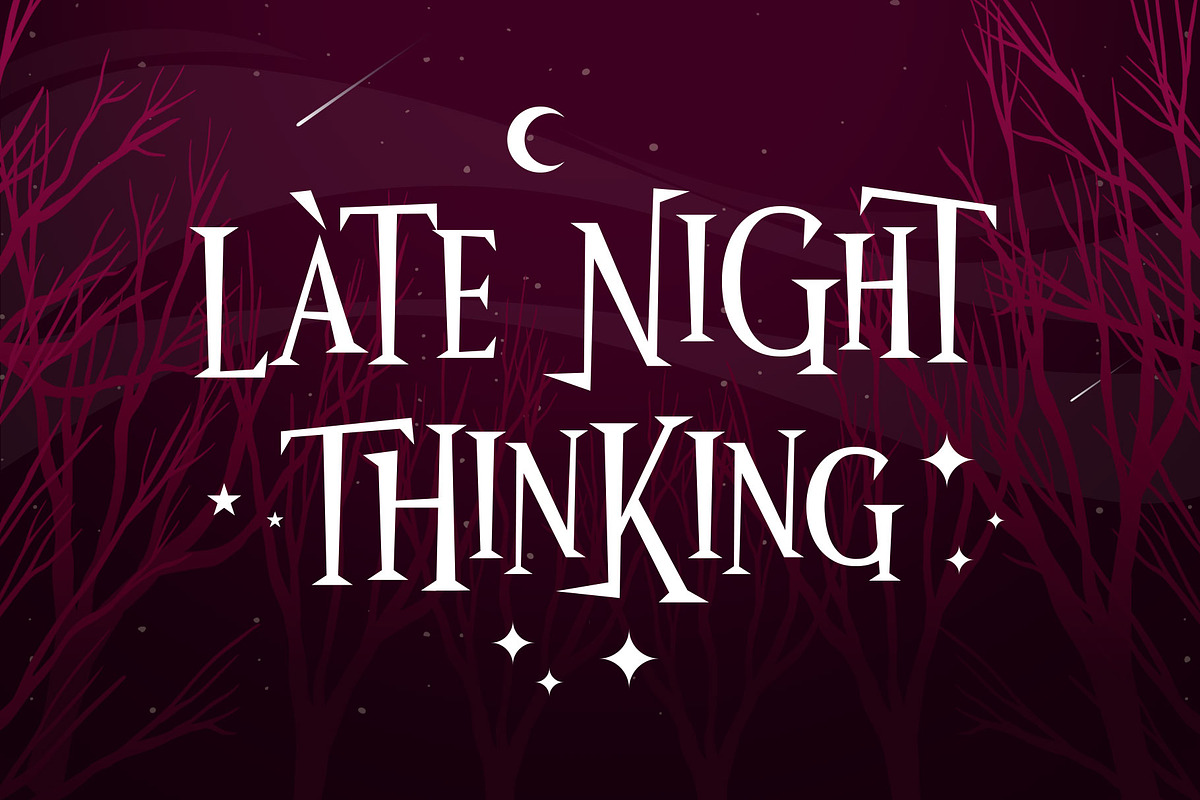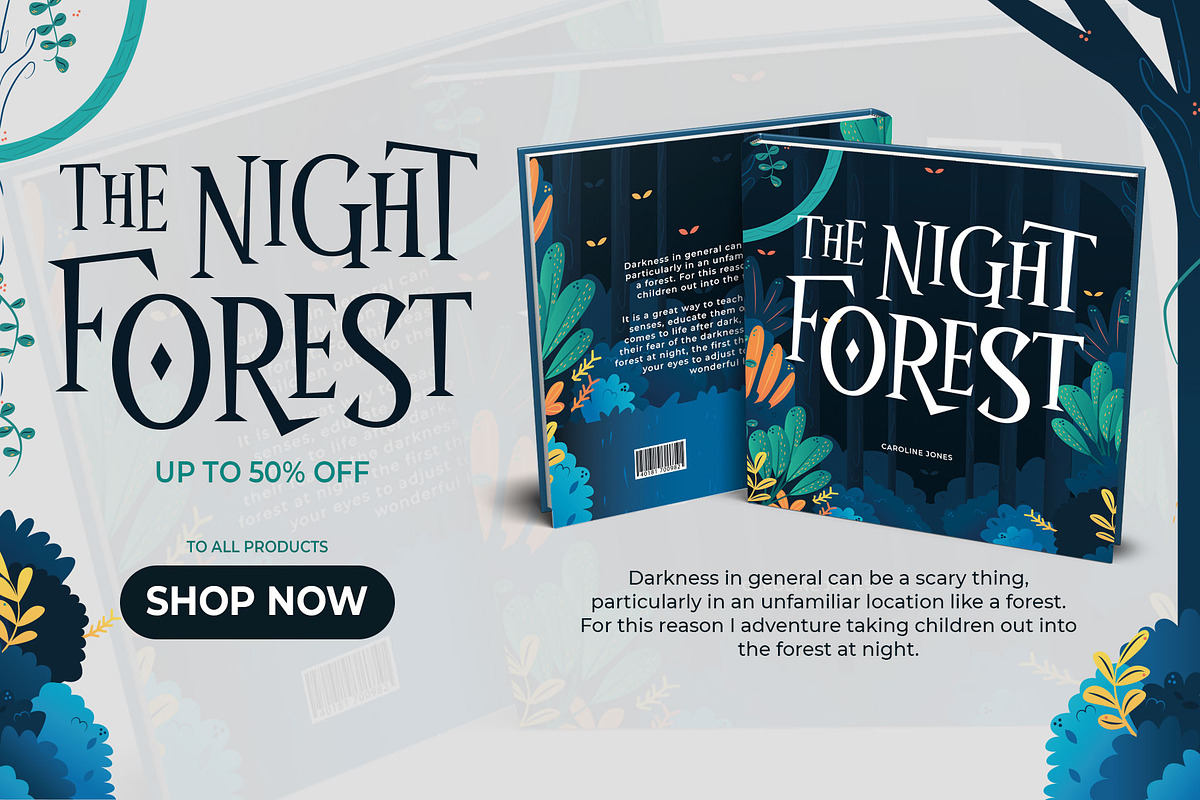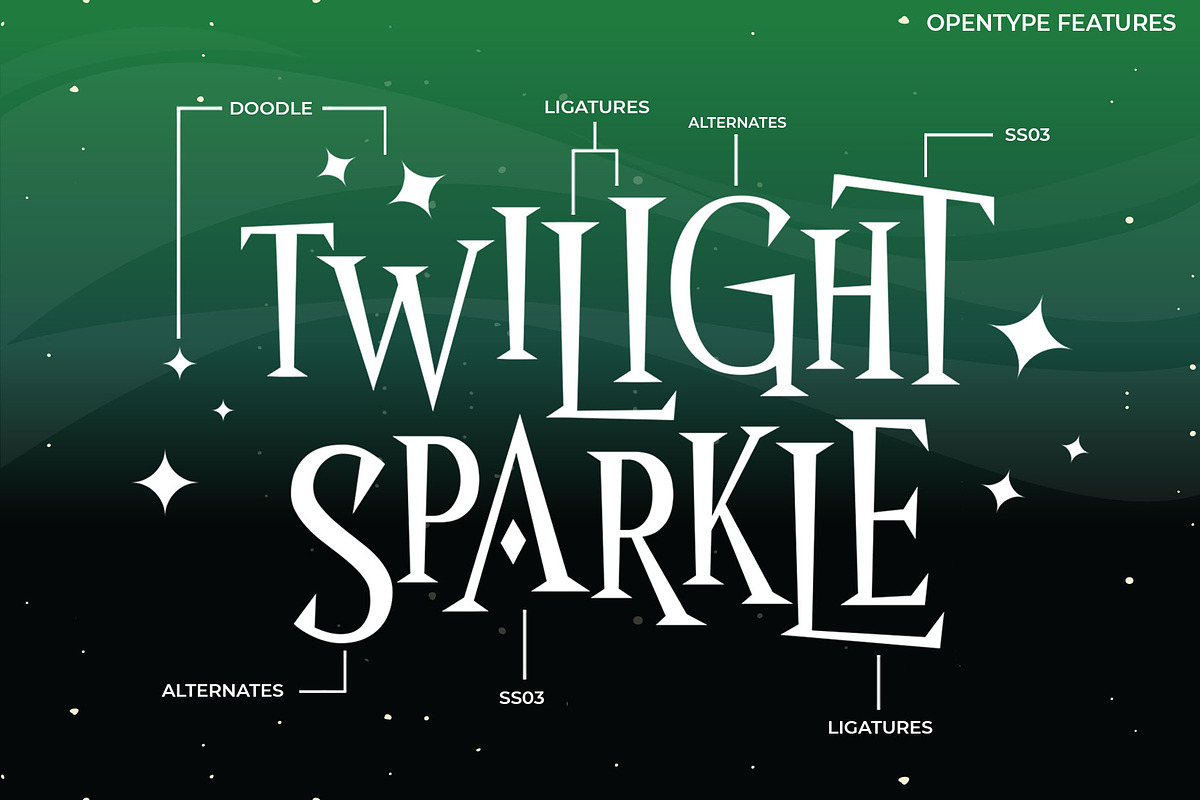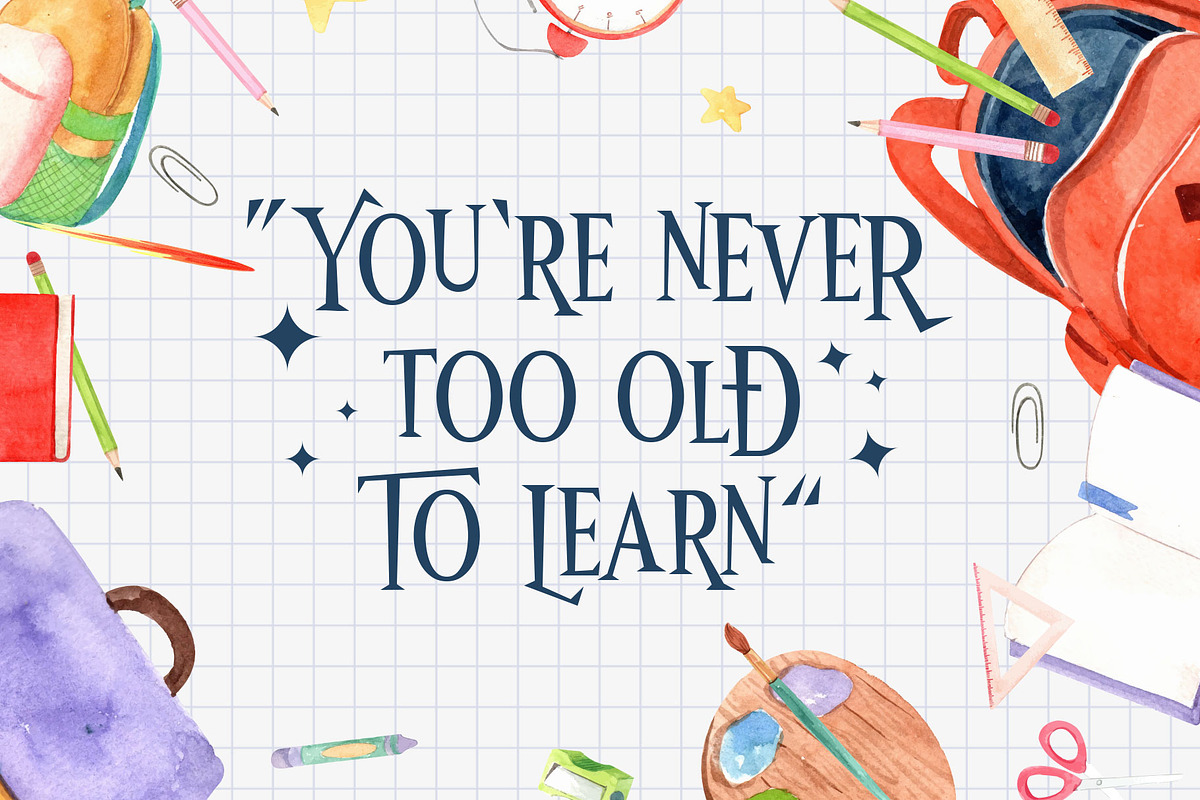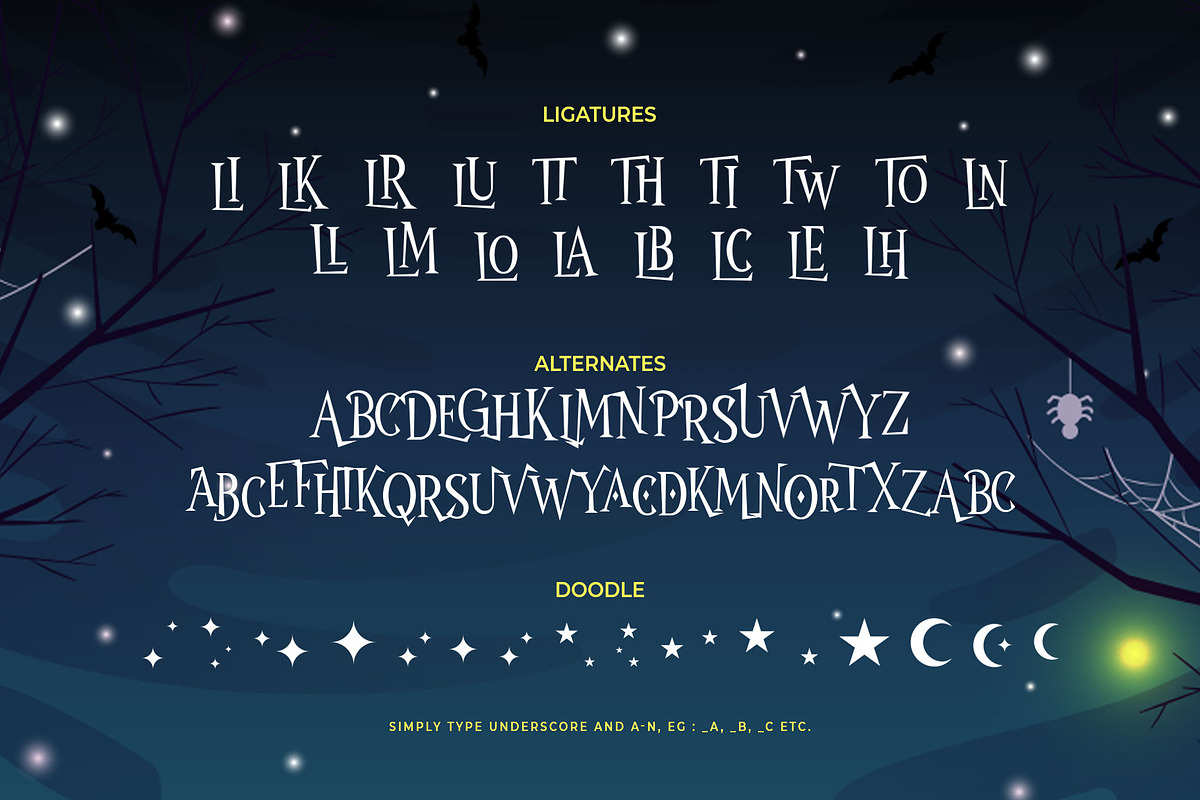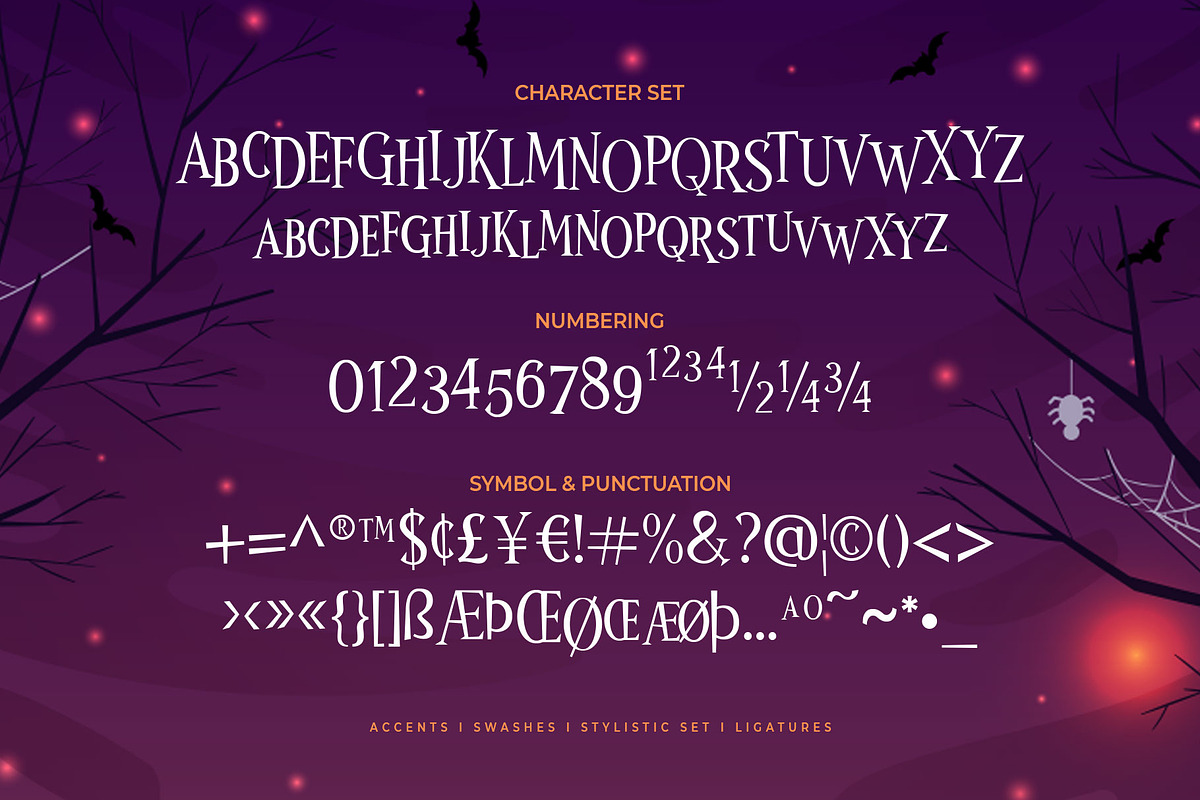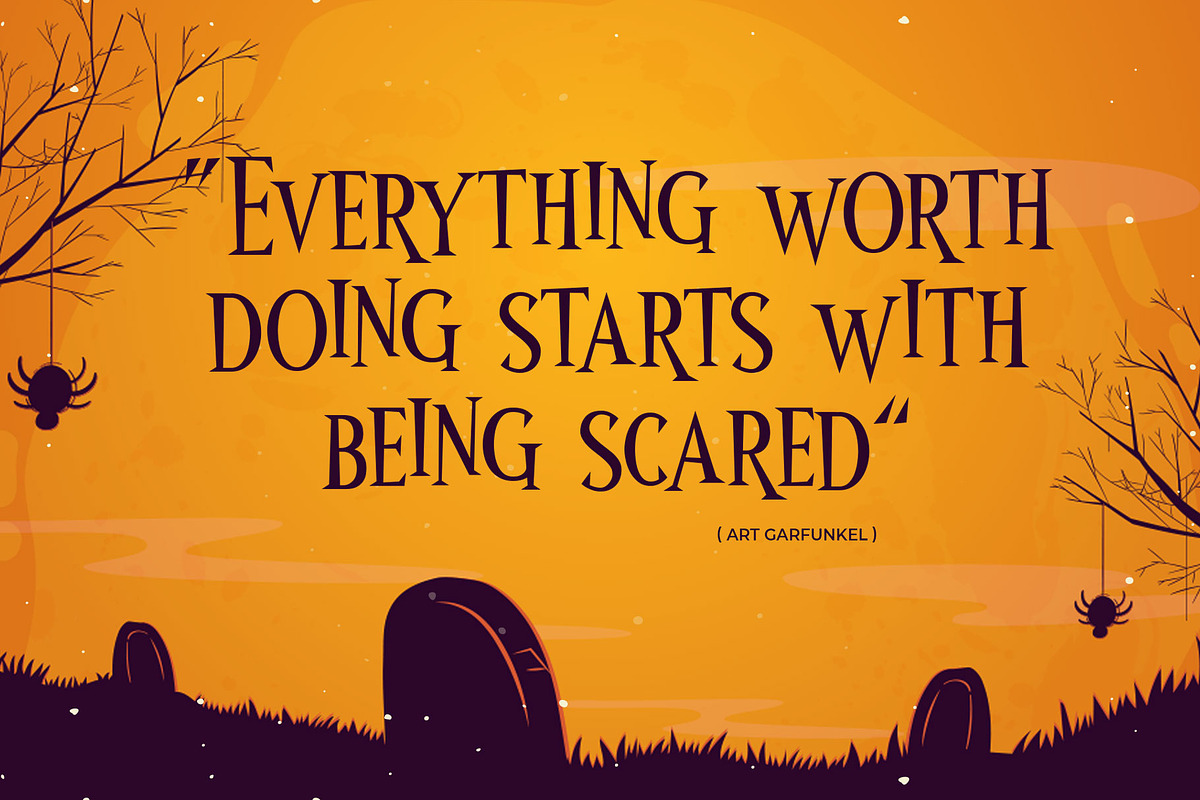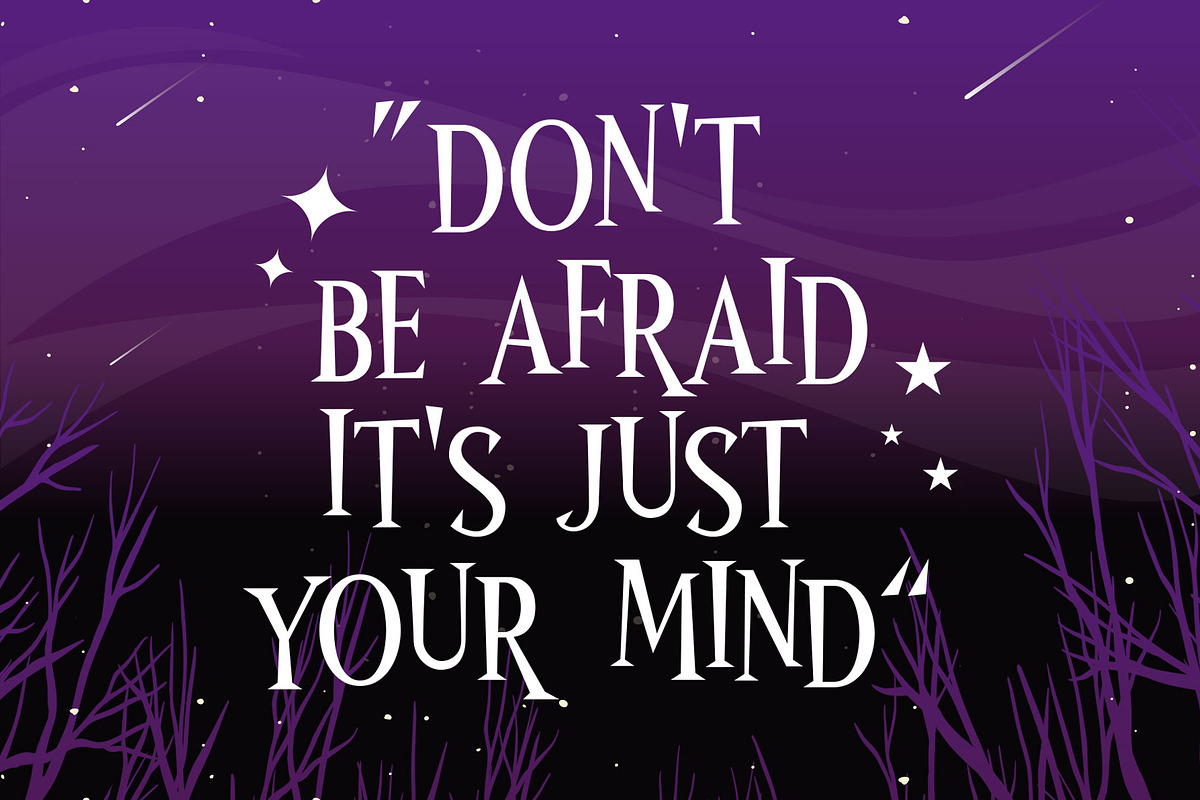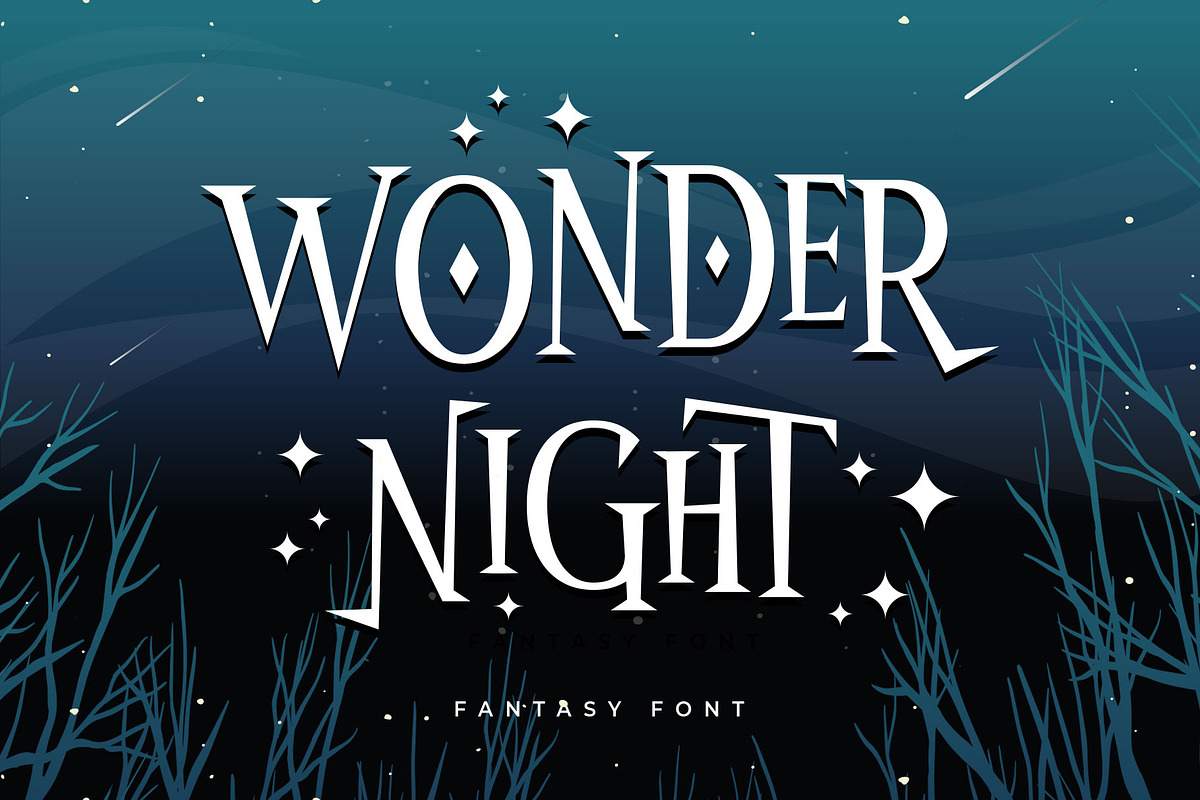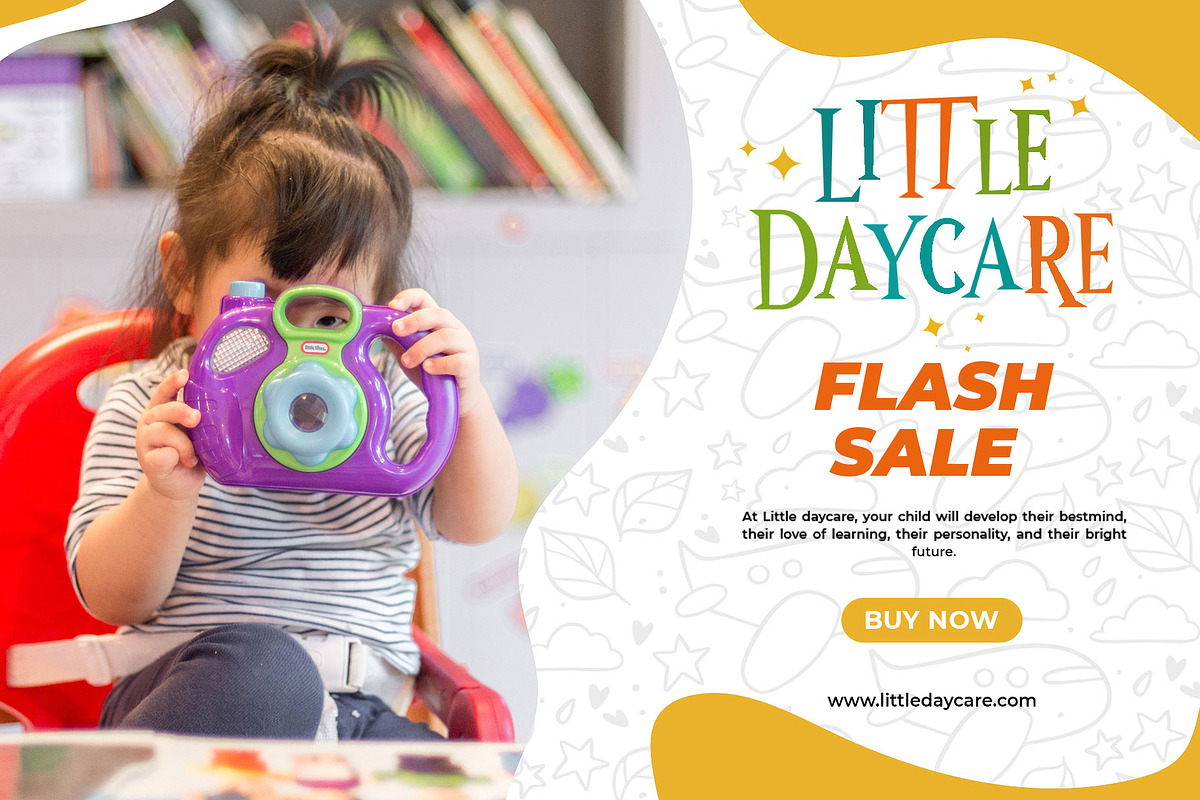
Wonder Night
Express your imagination with Wonder Night! a fancy fantasy font inspired by magical storybook and horror-fantasy movies. This font created with a very bouncy of letterforms, and carefully kerned into a readable typeface.
Wonder Night is an all-caps font that easy to play with. You can combine the uppercase and small caps to get a more playful design. Also completed with alternates and doodles as the decoration to get a more beautiful design. Wonder Night is suitable for children's merchandise, books, logotype, T-shirt, poster, title, quotes, and more!
Fonts featured :
- Small-caps
- Punctuation & symbols
- Stylistic alternates
- Stylistic set 02-03
- Doodles (simply type 'underscore' and 'A-N'; eg: _A, _B, _C, etc)